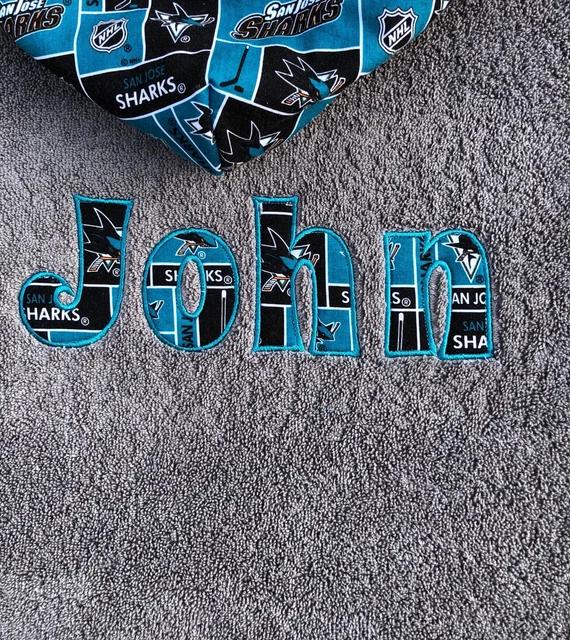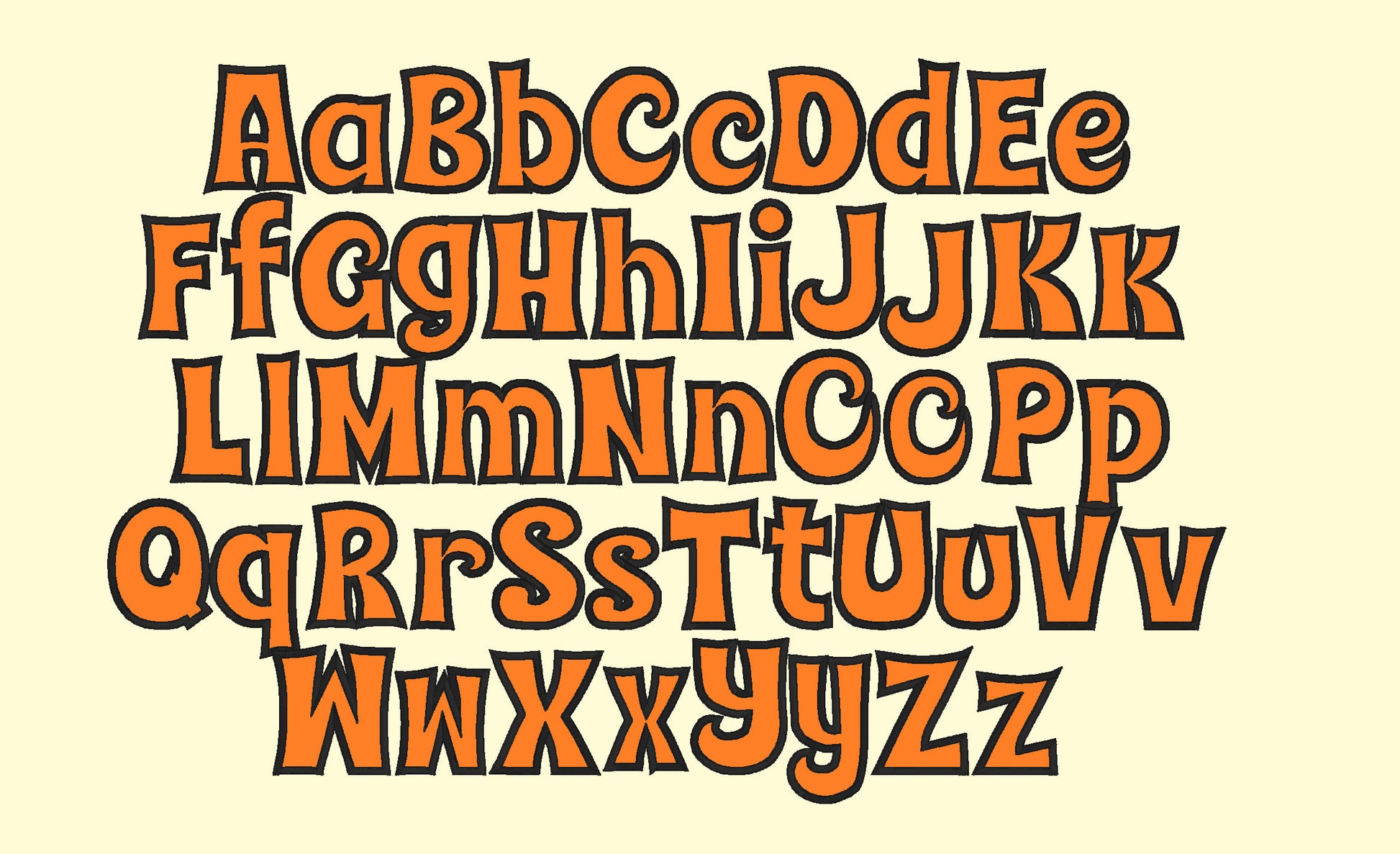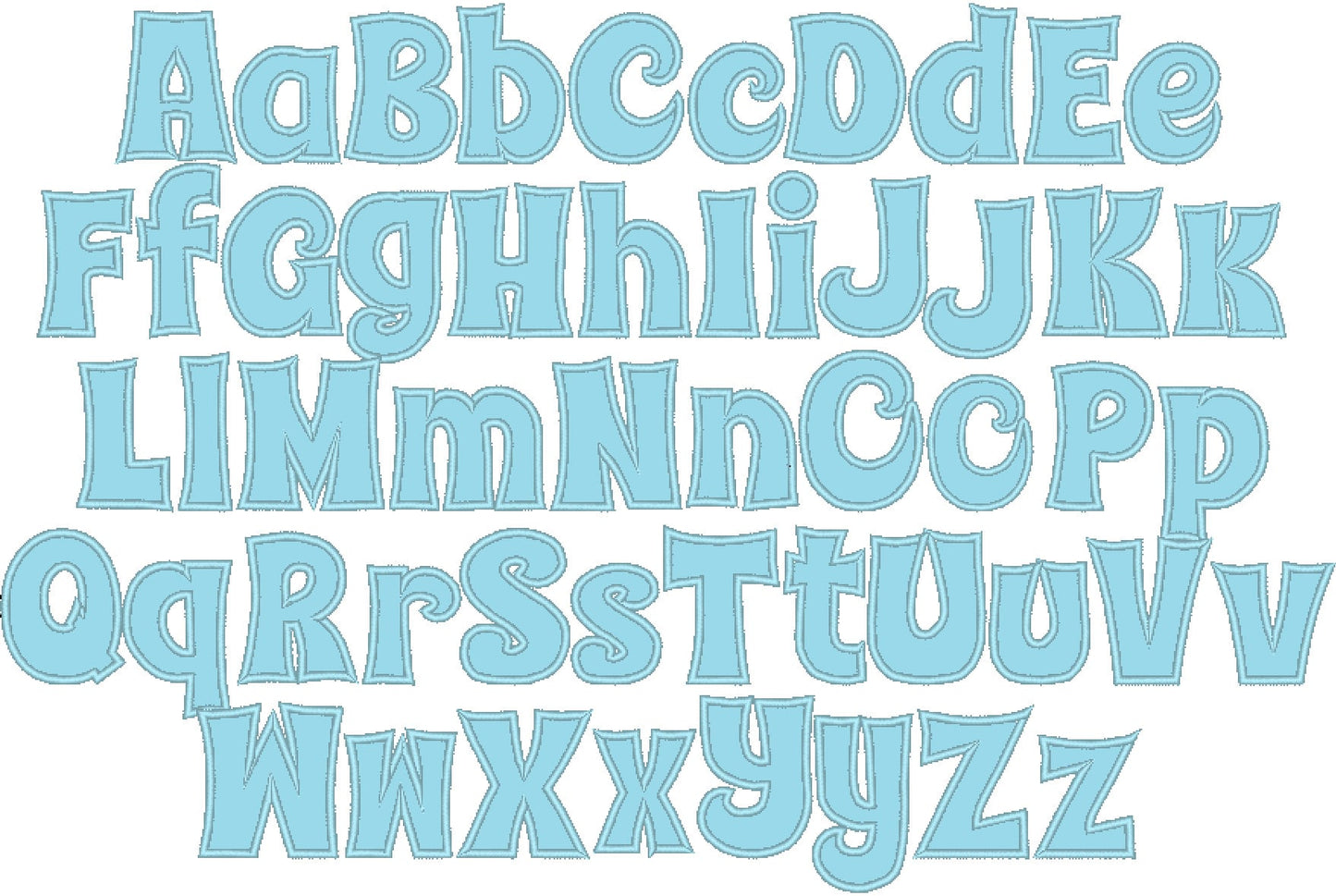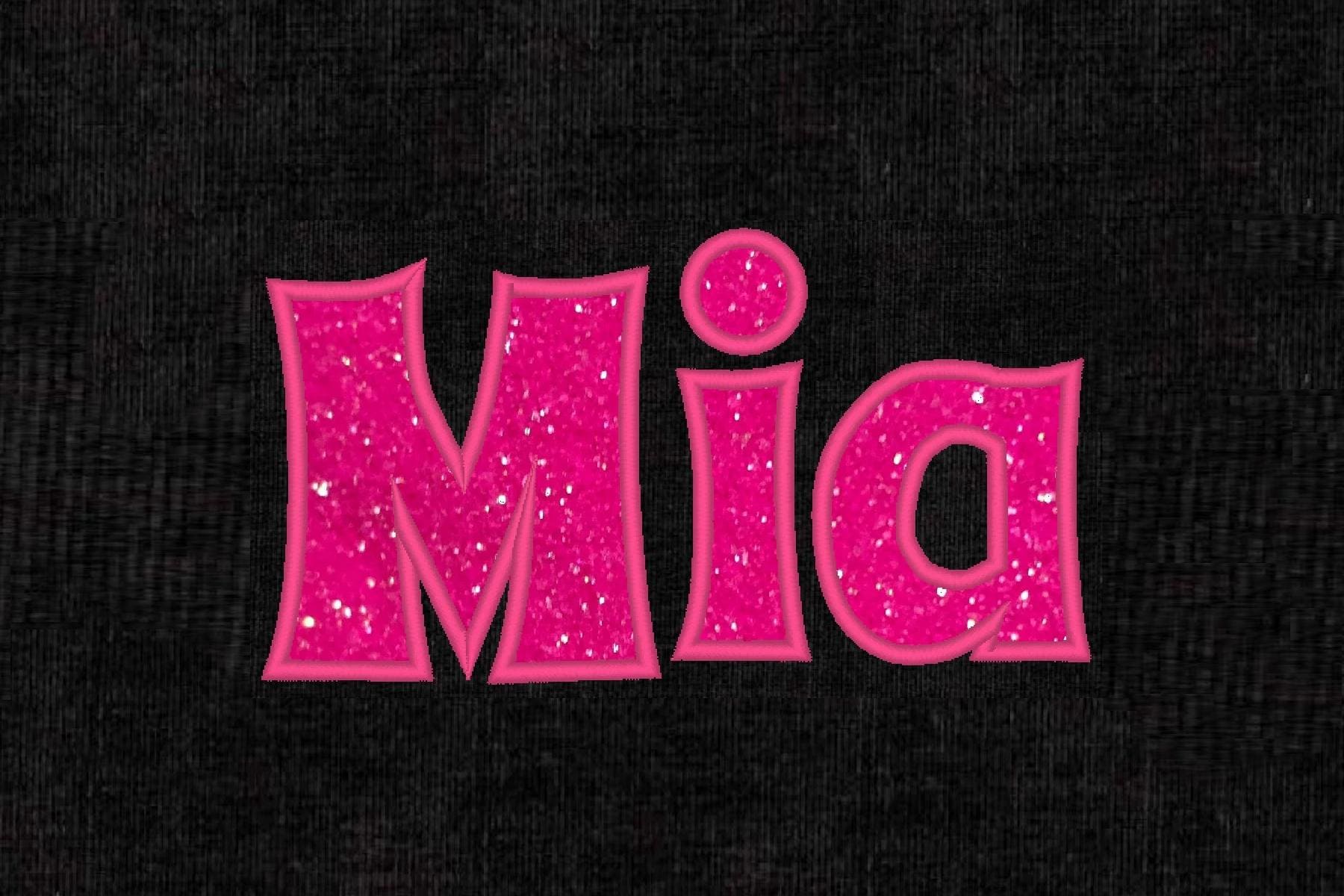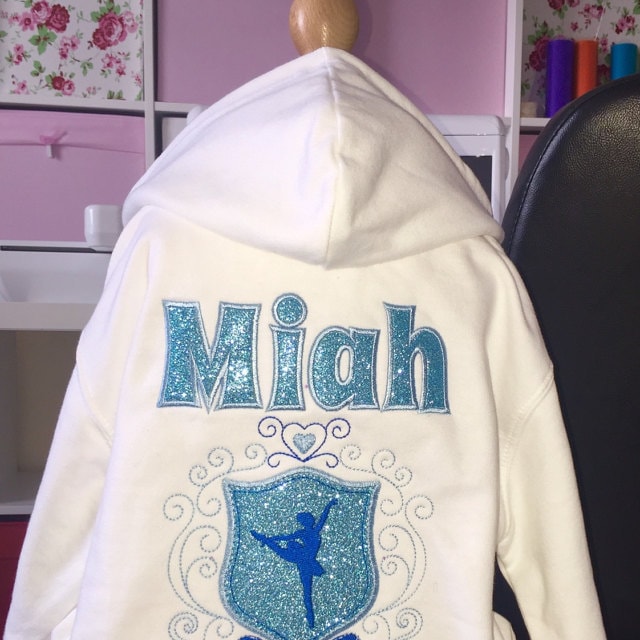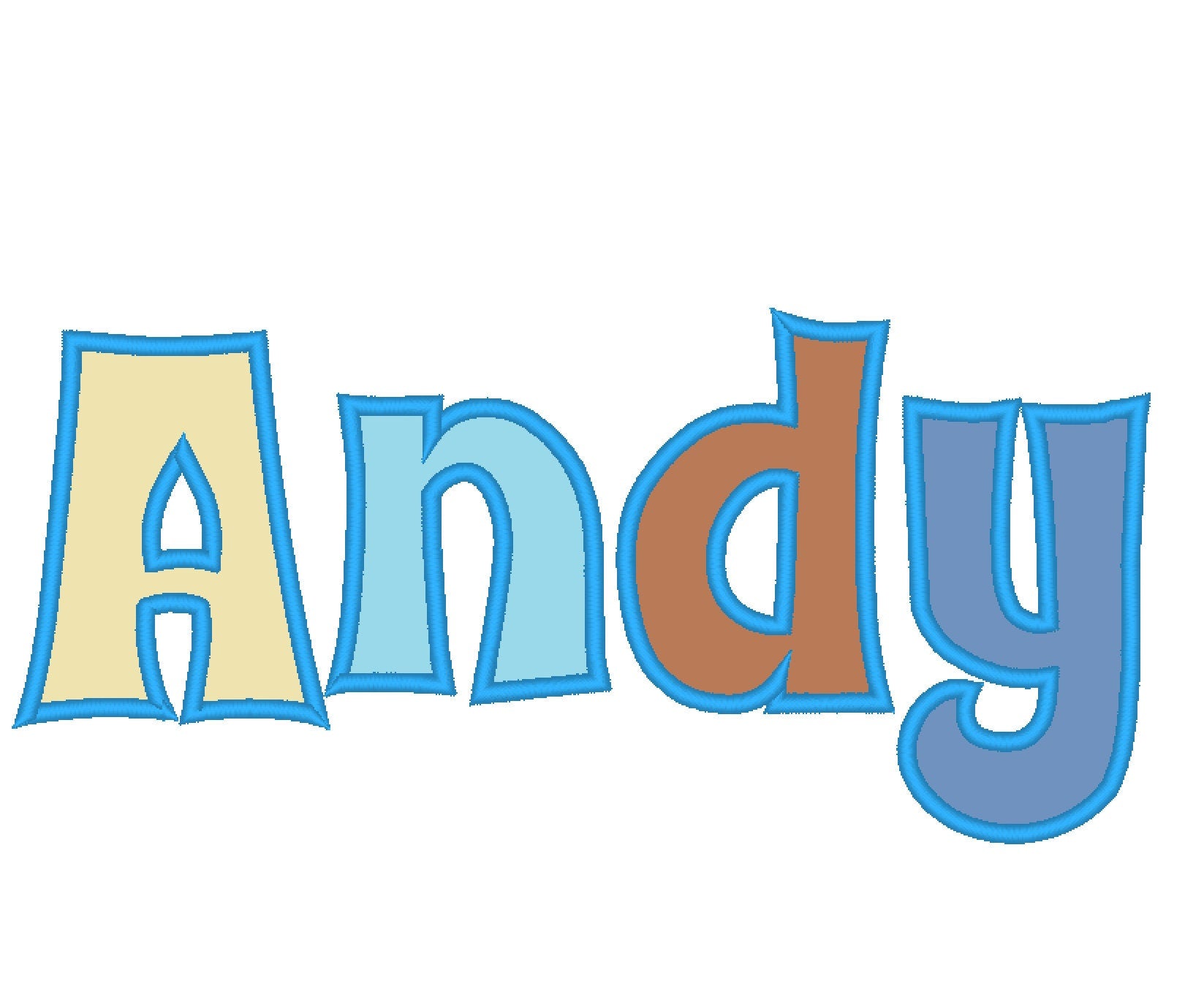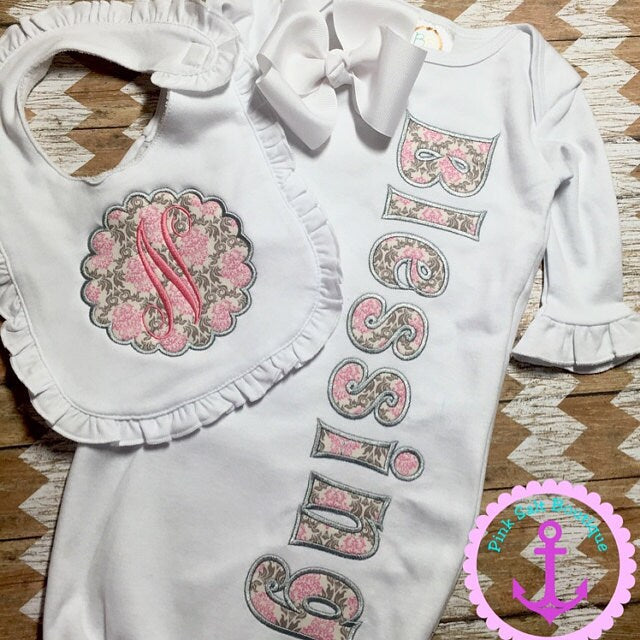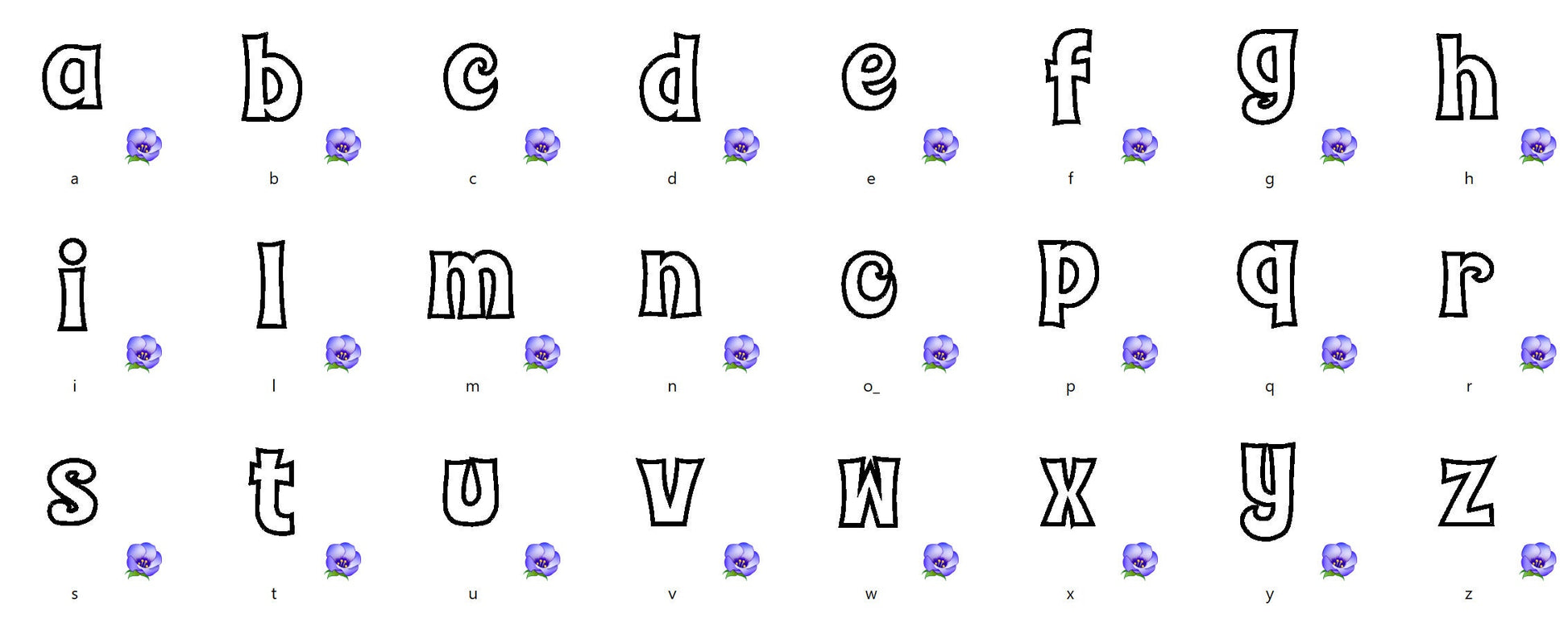
Looks great stitched out on shirts
This font is great! Stitched very nicely.
Love the way it stitch out!
This was a fanomanial stitch out. The quality of the stitch was great!!!
I used this on a jean jacket for a friend. She loved it!
Easy stitch out, great for baby gowns
I am just getting into appliques and this font made it so easy to stitch out and place the shimmery vinyl. Thank you!
Now a favorite applique monogram. Loved it.
Nice appliqué for my Brother machine
Design stiches out very nice
Great shop with fantastic designs. Stitched out great. Well recommended. Anna’s designs are fantastic. Thank you
Came out really cute for a little girls sweatshirt.
I like the font style
Stitched out perfectly! I love the letters! Perfect!
great applique font sews perfect
Très jolie broderie d'appliqué. Merci
Das Schriftbild wirklich schön, nur was das stickbild selber nicht sehr sauber. Vielleicht lag es aber an dem Matten Garten, welches ich benutzt habe.
Love the font, Artipli responds quick!
Great quality, stitched out great and it more then met my expectations.
Cute font, stitched out very nice.
Excellent file! Stitched out great!
El diseño es perfecto. Ok
Stitched lovely with a thick satin stitch. Very pleased
Great embroidery design for anyone.
I love the way it stitches out
stitched perfectly. going to be great for my small buisness
This item was a great stitch out.